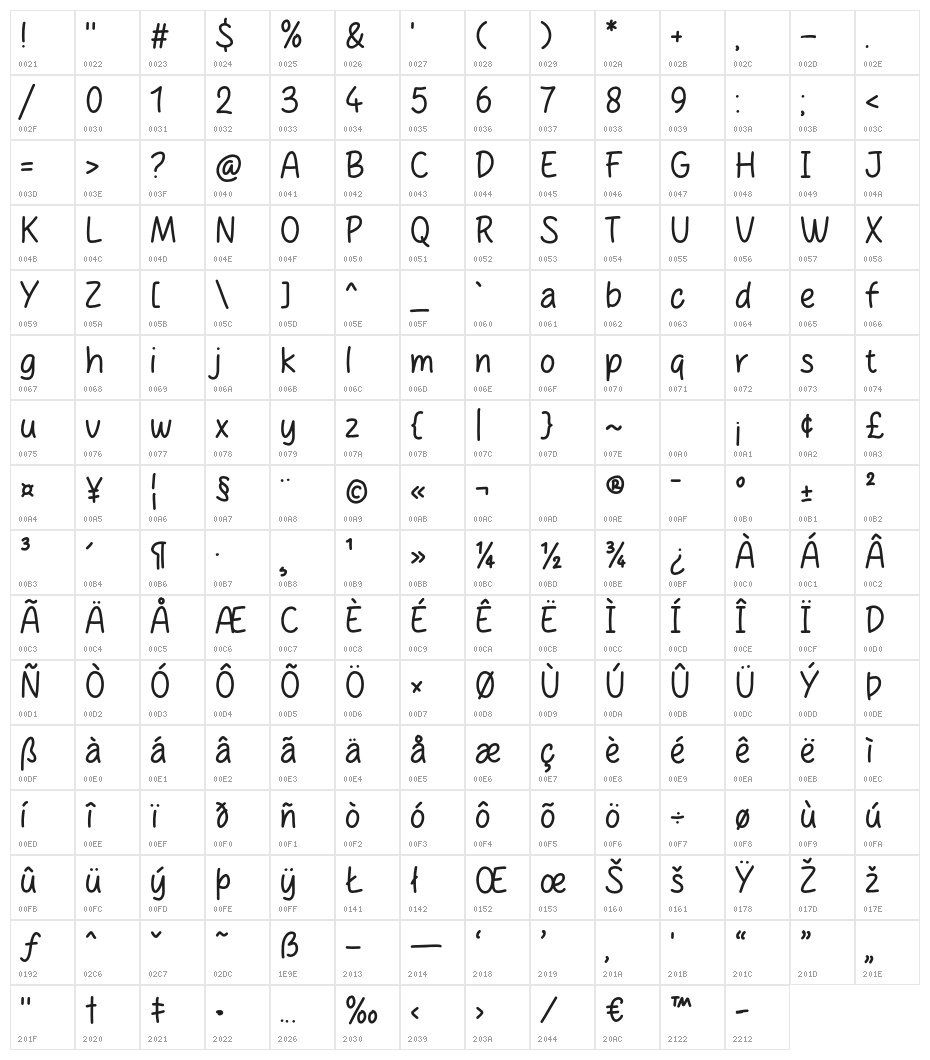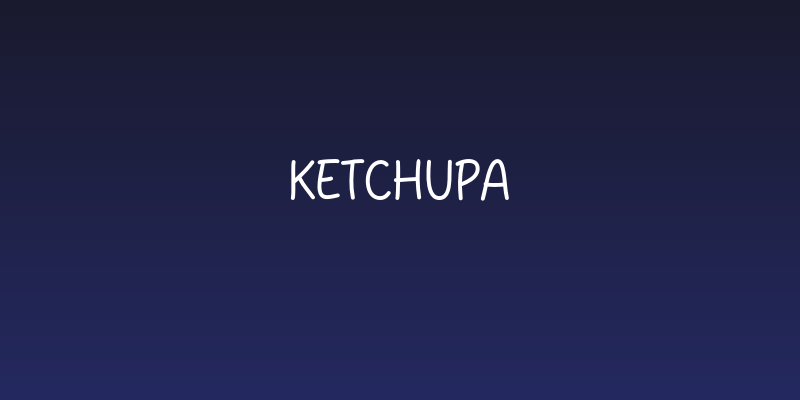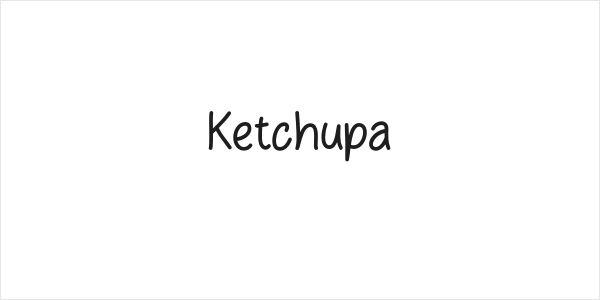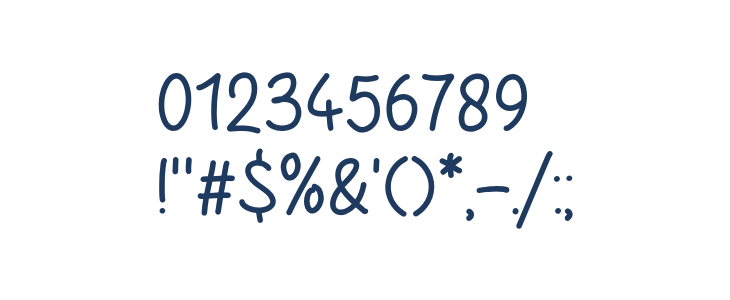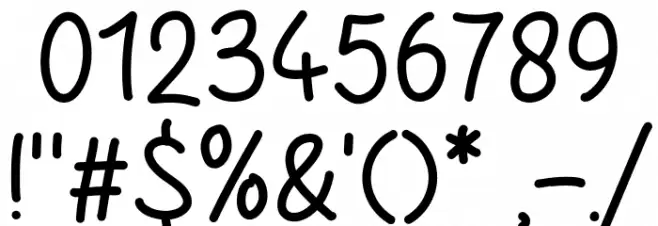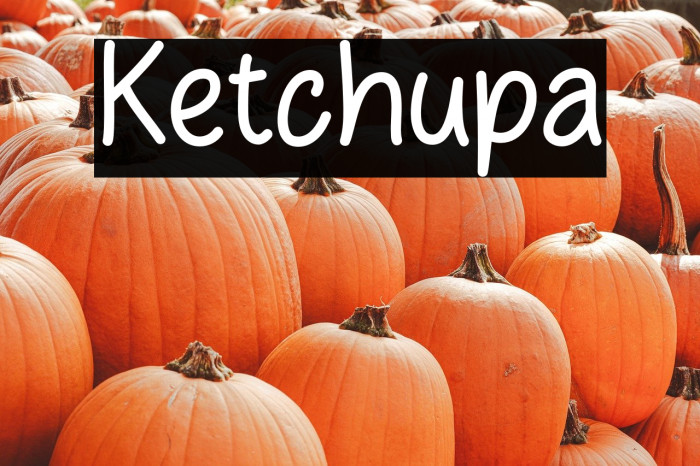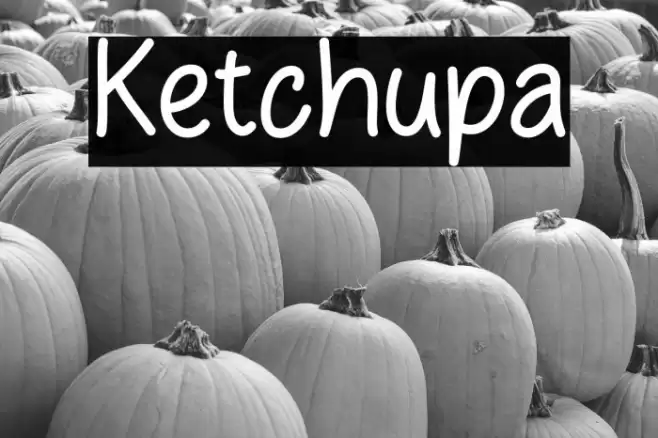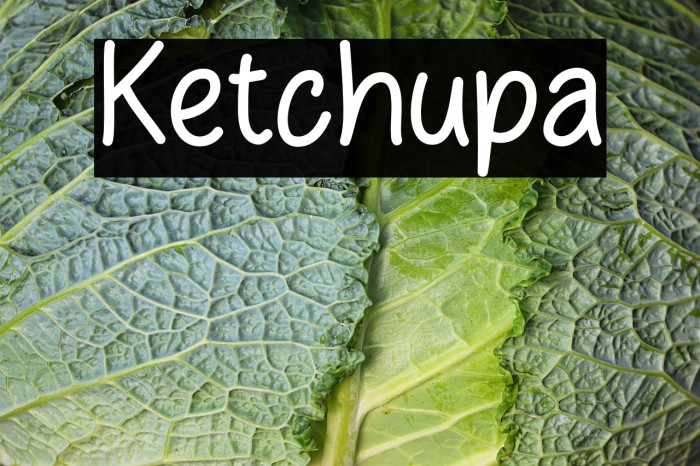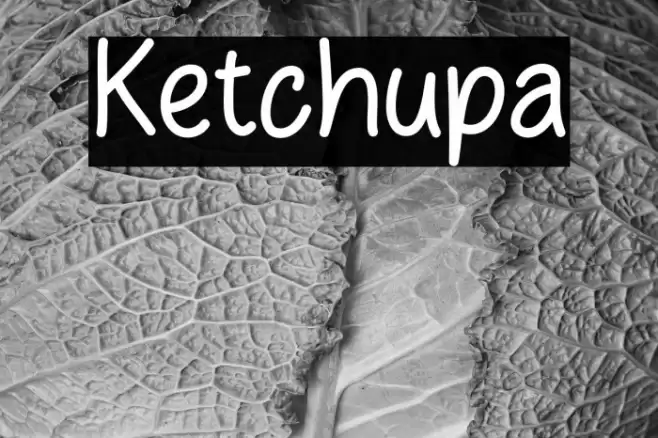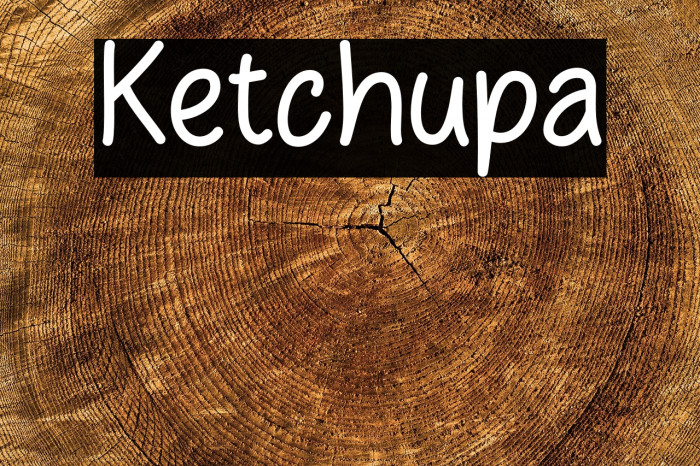
Ketchupa Font
Ketchupa Description
This font features a playful and casual handwritten style, characterized by its rounded and slightly irregular letterforms. The strokes are consistent in thickness, giving it a uniform appearance while maintaining a friendly and approachable feel. The characters are well-spaced, ensuring readability, and the overall design exudes a sense of informality and warmth. The numerals and special characters are crafted to match the whimsical nature of the alphabet, making it suitable for projects that require a personal touch.
| Overall Style | Casual |
| Use Case | Logos, Invitations, Greeting Cards |
| Proposed Projects | Ideal for children's books, greeting cards, informal invitations, and playful branding projects. |